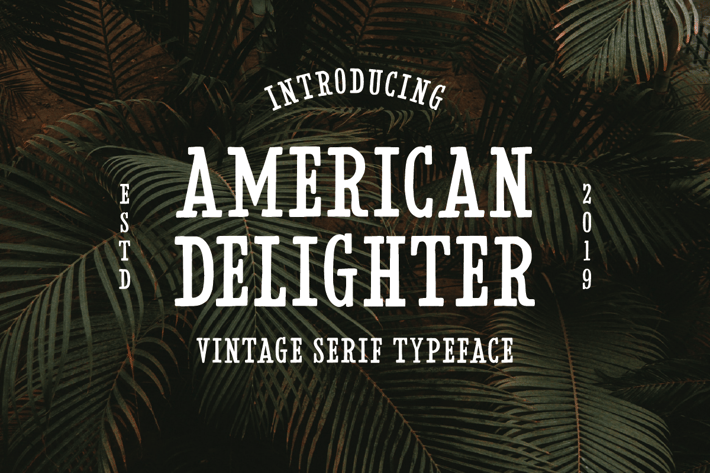
American Delighter Vintage Typeface
American Delighter is a family slab serif font designed with carefully handcrafted. Also suitable for branding, T-shirt, Wedding Invitation, Classic Design, Logotype, and any project. With two style make you easier to design everythings.
American Delighter Regular
American Delighter Outline